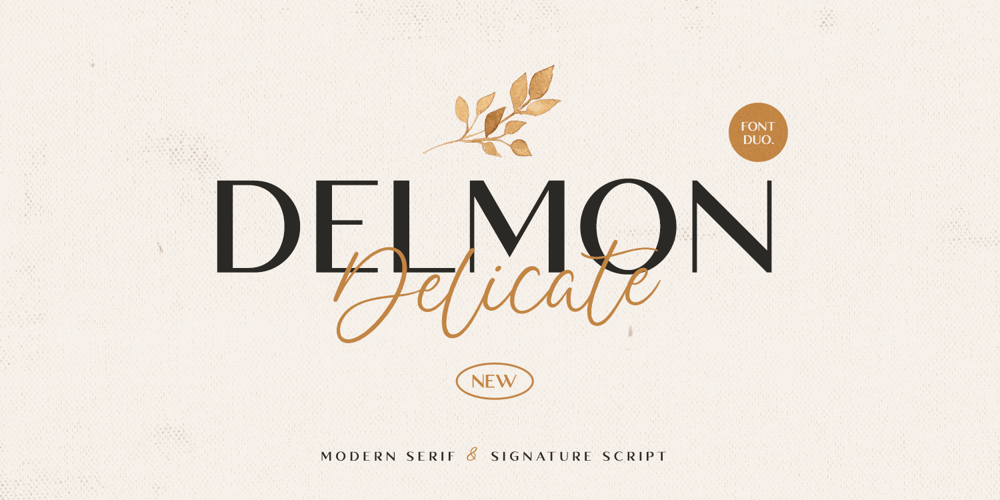
Delmon Delicate Font Family was designed by Andre Bima Falah Rabbani and published by Atharuah Studios. Delmon Delicate contains 2 styles and family package options. Delmon Delicate is a classy font duo, with elegant sans and script fonts. The two fonts are made with a balance that produces a beautiful blend to support all your design needs. For example, social media content, branding, merchandising, advertising, packaging, etc.Delmon Delicate includes 2 fonts:Delmon Delicate (Sans Serif) and Delmon Delicate Script, each of which has uppercase, lowercase letters, numbers, punctuation, and multilingual support.That’s it! I hope you enjoy it.Feel free to comment if there are issues or queries.You can also say hello to me on Instagram: https://www.instagram.com/atharuah_Thank You!